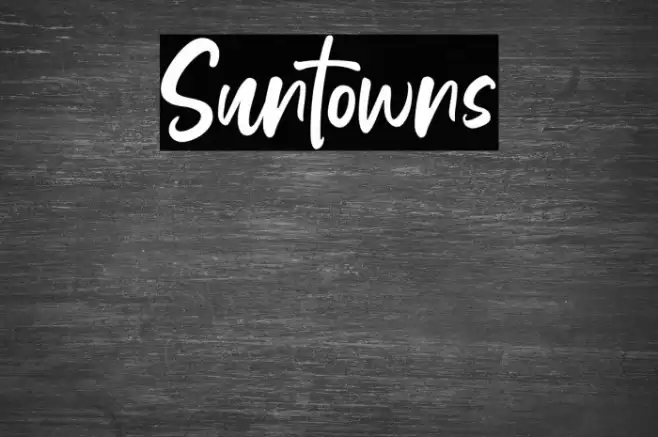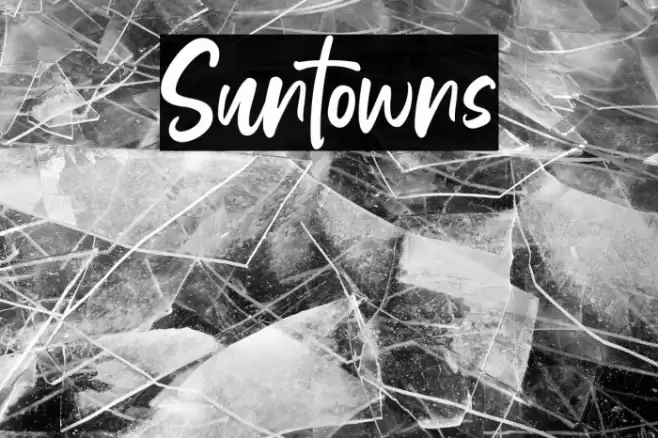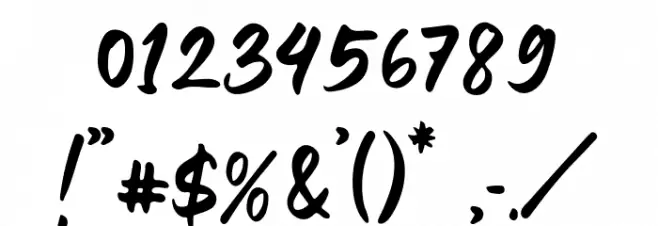
Suntowns Font
Suntowns Description
This font features a dynamic and expressive handwritten style, characterized by its fluid and cursive letterforms. The strokes are bold and confident, with a slight slant that adds a sense of motion and energy. The uppercase letters are tall and commanding, while the lowercase letters maintain a consistent flow, enhancing readability. The numerals and special characters are crafted with the same attention to detail, ensuring a cohesive look across all elements. This font's playful yet sophisticated appearance makes it suitable for a variety of creative applications.
A bold, cursive handwritten font with dynamic and expressive strokes from Regular fonts.
- Proposed Projects: Ideal for branding, invitations, greeting cards, and social media graphics.
- Use Case: Logos, Headlines, Invitations